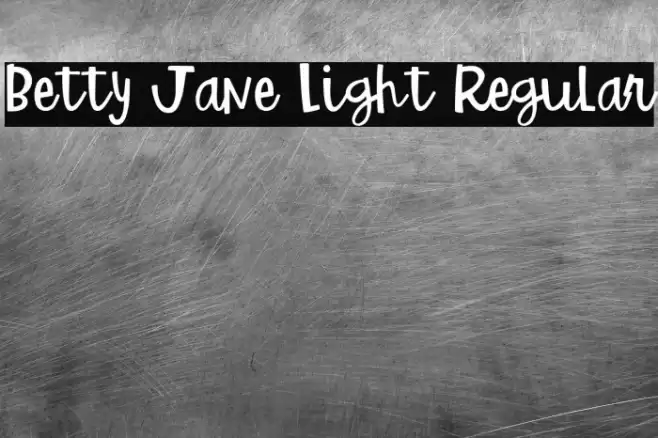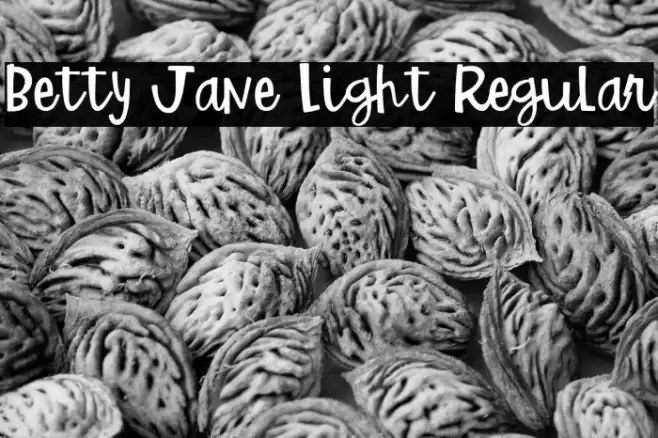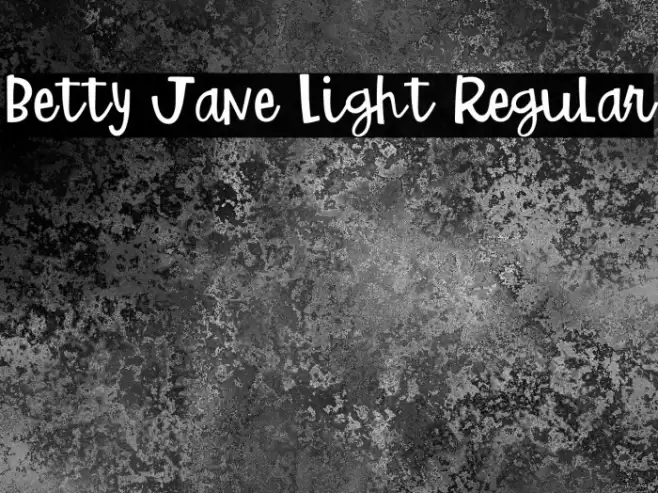
Betty Jane Light Regular Font
Betty Jane Light Regular Description
This font features a playful and casual handwritten style, characterized by its smooth, flowing curves and slightly irregular letterforms. The uppercase letters are bold and prominent, while the lowercase letters maintain a consistent flow, adding a touch of whimsy. The numbers are rounded and easy to read, complementing the overall friendly appearance. The special characters are integrated seamlessly, maintaining the font's cohesive look. This font's informal and approachable style makes it suitable for a variety of creative projects.
A playful, casual handwritten font with smooth curves and a whimsical style from Uncategorized fonts.
- Proposed Projects: Ideal for greeting cards, children's books, playful branding, and social media graphics.
- Overall Style: Casual, Playful
- Use Case: Headlines, Logos, Informal Text